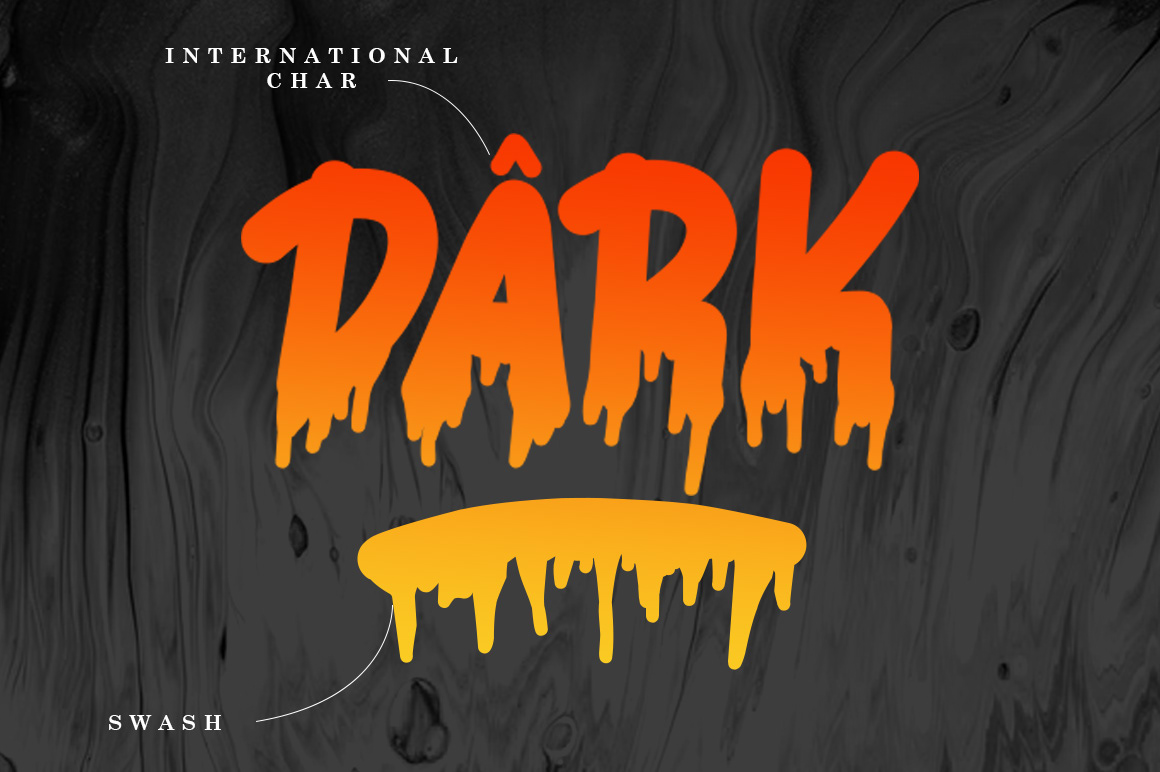
HORROR SPRAY | SCARY DISPLAY FONT
HORROR SPRAY – SCARY DISPLAY FONT, from Elbanadha Creative, suitable for any projects such as: logos, branding projects, homeware designs, product packaging, mugs, quotes, posters, shopping bags, t-shirts, book covers, name card, invitation cards, greeting cards, label, photography, watermark, special events, and all your other lovely projects that need a beautiful taste. This font is PUA encoded which means you can access all of the glyphs and swashes with ease.
HORROR SPRAY | SCARY DISPLAY FONT
HORROR SPRAY – SCARY DISPLAY FONT, from Elbanadha Creative, suitable for any projects such as: logos, branding projects, homeware designs, product packaging, mugs, quotes, posters, shopping bags, t-shirts, book covers, name card, invitation cards, greeting cards, label, photography, watermark, special events, and all your other lovely projects that need a beautiful taste. This font is PUA encoded which means you can access all of the glyphs and swashes with ease.